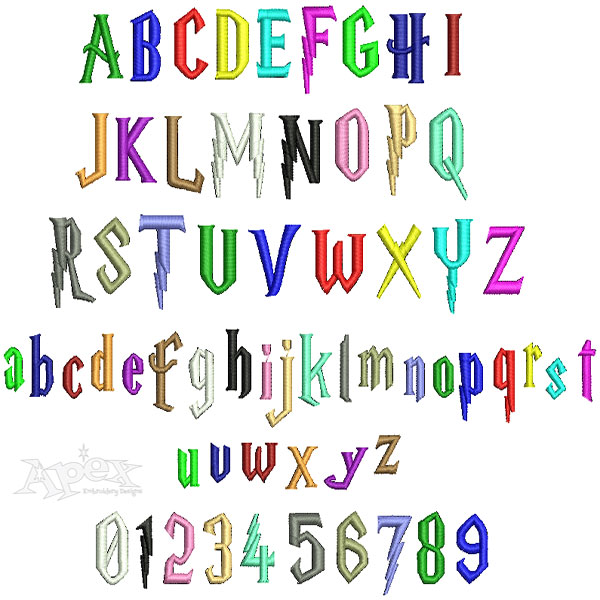
Harry Potter Embroidery Font
Steeped in the mystery of ancient spellbooks, secret passages, and crackling hearths in grand castle dormitories, this lettering style awakens pure childhood wonder. When translating these iconic, jagged lightning-struck serifs into machine embroidery, our digitizing studio focused on capturing that cinematic crackle of arcane energy. Rendered entirely in high-sheen satin stitch with no dense fill stitching, every glyph balances bold, rebellious theatricality with the refined finish of a bespoke heirloom. It invites you to weave a touch of everyday sorcery into textiles, creating bespoke monogrammed keepsakes that feel plucked straight from a world of witchcraft and wizardry.
Harry Potter Embroidery Font Craft & Letterform Details
The beauty of this lettering lies in its deliberate, dramatic asymmetry. Sharp, lightning-inspired breaks, exaggerated drop serifs, and eccentric crossbars demand thoughtful digitizing to ensure thread transitions remain clean and needle penetrations stay precise. Rather than relying on rigid, auto-generated stitches, each letterform was drafted manually to guide the thread along the natural curvature of the stroke. Underlay passes are placed strategically along the core of each stem, providing structural loft and crisp edge definition without distorting the fabric. Because the entire alphabet is built strictly using smooth satin stitch columns without any flat tatami fill, the letters catch the light with an authentic, luminous gleam that honors the rich lore behind every magical curve.